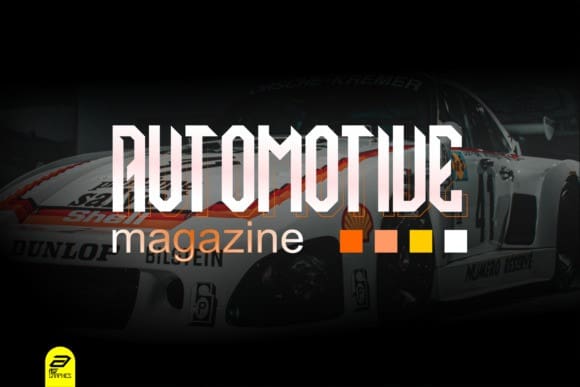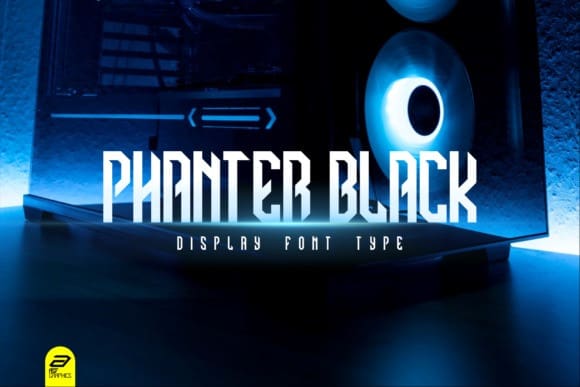
Phanter Black Font
Phanter Black Font is a cool and bold display font. This font is impressive and features uniquely shaped letters, and as a result, it will easily match a variety of creations that require a different touch.